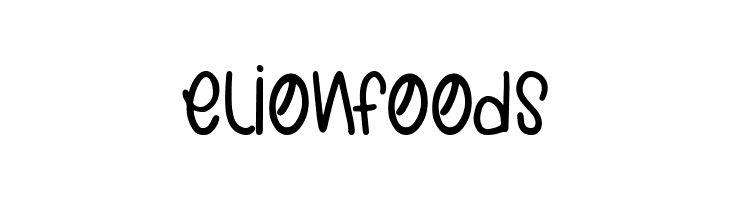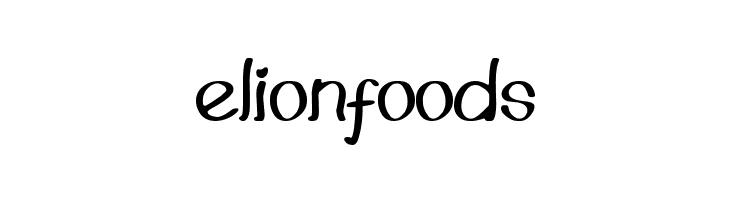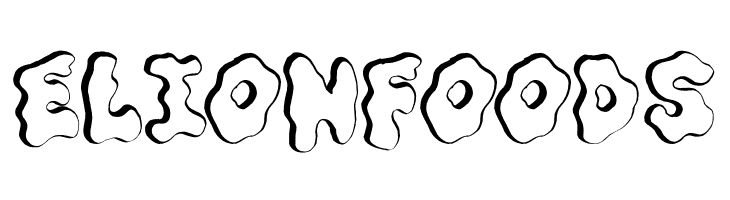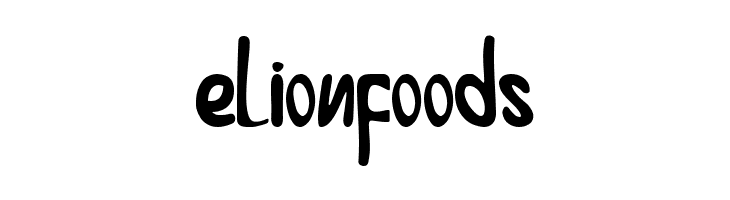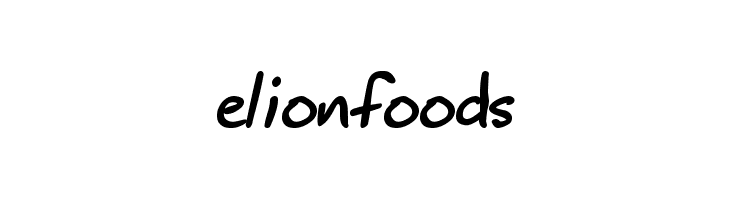
A playful, wavy font with a jelly-like texture and bold, rounded characters.
A playful, bubbly font with rounded, hand-drawn letterforms.
A playful, hand-drawn font with rounded, fluid characters.
An elegant, flowing script font with intricate details and graceful curves.
A graceful, handwritten script font with ornate swashes and flowing lines.
A playful, casual handwritten font with fluid strokes and expressive characters.
A playful, bold, and rounded handwritten font with a whimsical touch.
A playful, bold font with rounded, bubbly characters and a hand-drawn feel.
A bold, italicized handwritten font with dynamic and fluid strokes.